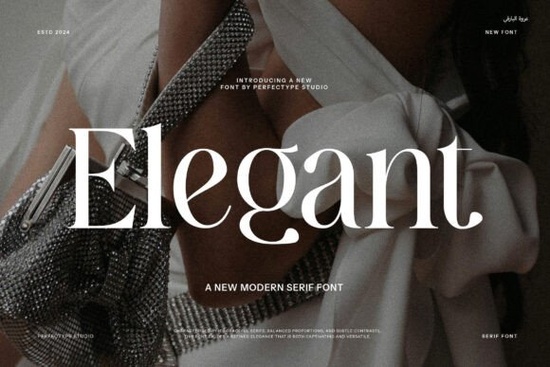
If you're looking for a typeface that adds polish and refinement to your designs without overwhelming them, Elegant Font is worth a closer look. With its smooth letterforms, delicate strokes, and gentle curves, it brings a timeless sophistication to everything from wedding invitations to boutique packaging. Whether you're a small business owner creating branded materials or a crafter personalizing gifts, this serif font offers clarity and charm in equal measure.
What makes a font feel “elegant”?
Elegance in typography often comes down to balance thin hairlines paired with subtle contrast, open counters, and graceful transitions between thick and thin strokes. Fonts like Elegant Font embody these traits while remaining highly legible. Unlike overly ornate scripts, it maintains readability even at smaller sizes, making it practical for both headlines and short body text.
For those who appreciate classic serifs but want something softer than traditional options like Times New Roman, Elegant Font strikes a middle ground. It’s reminiscent of high-end fashion branding or luxury stationery think embossed business cards or minimalist product labels.
How can designers and small businesses use this font effectively?
Here are a few real-world applications where Elegant Font shines:
- Wedding and event stationery: Invitations, place cards, and menus benefit from its refined aesthetic.
- Product packaging: Soap labels, candle jars, or gourmet food wraps gain instant premium appeal.
- Social media graphics: Quotes, announcements, or brand posts feel more intentional with thoughtful typography.
- Print-on-demand items: Mugs, tote bags, or wall art featuring short phrases look polished and on-trend.
Because it’s a serif font with restrained detailing, it pairs well with clean sans-serifs like Montserrat or Lato. Avoid combining it with other decorative fonts let it be the focal point.
How does it compare to similar serif fonts?
If you’ve browsed Creative Fabrica’s serif collection, you might have come across alternatives like Retro Typewriter, which leans into vintage mechanical charm, or Moon Creme, a softer, rounded serif with a dreamy vibe. Elegant Font sits between them: not as rigid as a typewriter face, nor as whimsical as Moon Creme. It’s ideal when you need formality without stiffness.
Unlike display-heavy fonts that only work at large sizes, Elegant Font remains functional across a range of uses. That versatility is especially helpful if you’re managing multiple design assets with limited time or resources.
Tips for using Elegant Font in your next project
Keep these practical considerations in mind:
- Use generous spacing. Its thin strokes can feel cramped if letters are too tight. Slight letter-spacing (tracking) improves readability and enhances the airy feel.
- Stick to light or neutral backgrounds. Dark text on white or cream lets the fine details stand out. Avoid busy patterns underneath.
- Limit all-caps usage. While uppercase can work for logos or monograms, the font’s elegance truly shows in mixed case.
- Test print samples. Thin lines may disappear on low-resolution printers or certain fabrics always do a physical proof if your final output isn’t digital.
For deeper insight into how serif fonts influence perception, the Typography Handbook offers useful context on historical styles and modern applications though Elegant Font itself doesn’t mimic any single era, it draws quietly from centuries of typographic tradition.
Ready to try it?
If your current projects feel a little flat or generic, swapping in a thoughtfully crafted serif like Elegant Font can make a noticeable difference without requiring a complete redesign. It’s the kind of subtle upgrade that clients, customers, or followers might not name outright but will definitely feel.